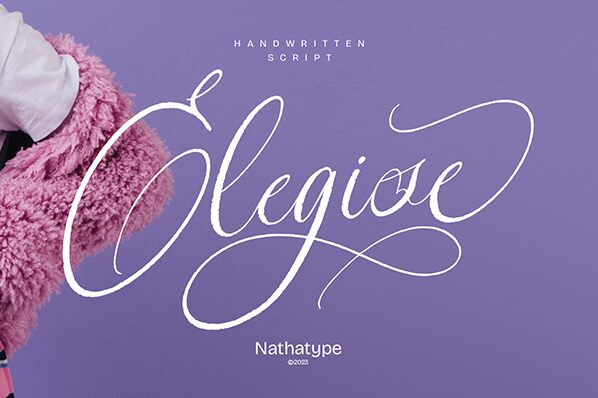
Elegise font is a light calligraphy font by Nathatype which was created with flowing lines. It is elegant, expressive and designed with an artistic flair that makes every spelled word romantic in an instant. While compact, the letters have a sophisticated appeal and easily capture attention when mixed with text from other fonts.
Since Elegise is beautiful it was intended to join artwork where beauty matters such as female fashion, jewelry advertisements, gift shop logos, branding, red color cosmetics packaging and much more. Try it in magazine covers for women along with popular blog covers and social media content.